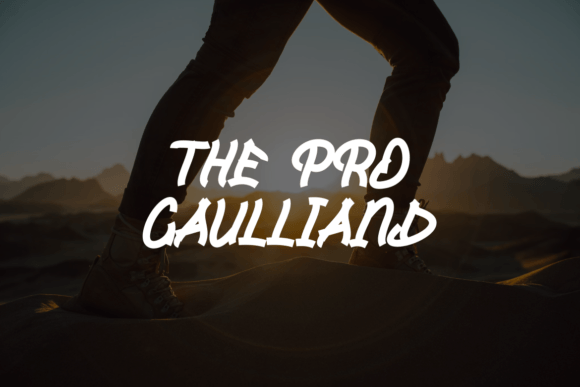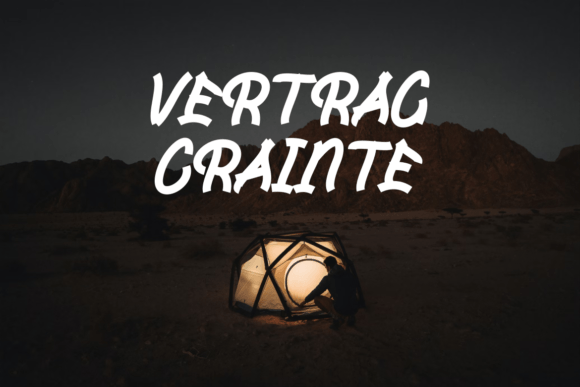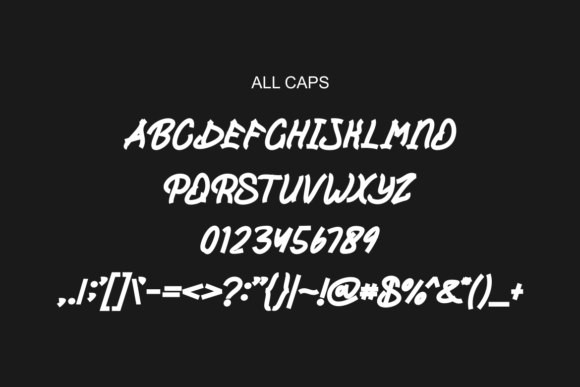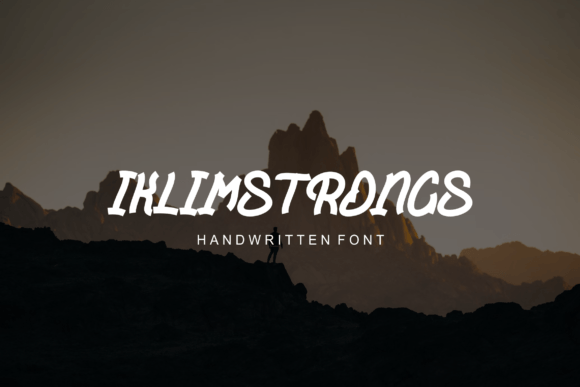
Introduction to Iklimstrongs Font
Iklimstrongs is an elegant handwritten typeface.
Ideal for creating unique stickers, decals, and other promotional materials Overall, β€œIklimstrongs ” is a versatile and elegant handwritten typeface that brings a sophisticated and graceful touch to any project.